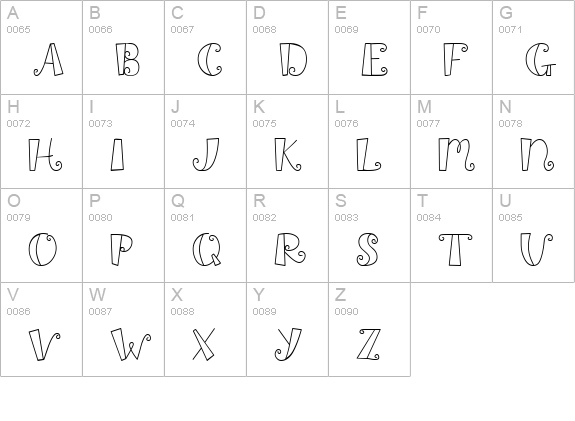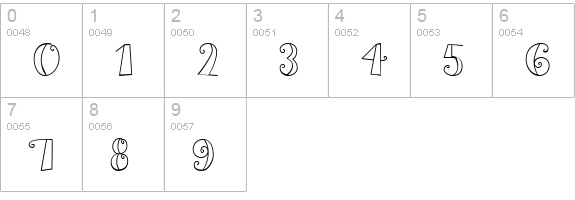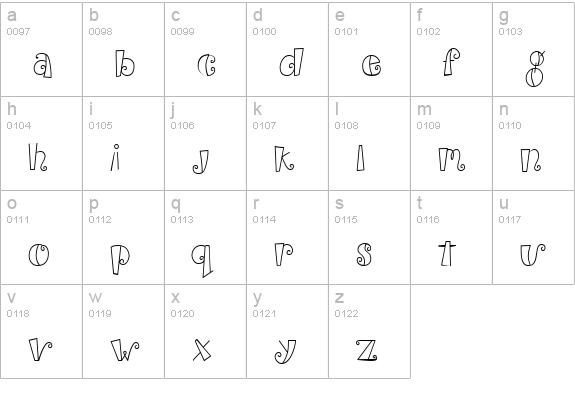
CK Anything Goes Font Details
CK Anything Goes font is a versatile and modern typeface that effortlessly blends a sense of playfulness with sophistication. With its clean lines and stylish curves, this font is perfect for a wide range of design projects, from branding to editorial layouts. The CK Anything Goes font offers a unique charm that will make your text stand out and captivate your audience. What makes this font even more appealing is that it is available for free download at FontsMarket.com. This means that you can easily incorporate the CK Anything Goes font into your projects without having to worry about any additional costs. Whether you are a designer looking to add a touch of creativity to your work or a business owner seeking a fresh look for your branding, this font is a fantastic choice that won't break the bank. Download CK Anything Goes font today and let your creativity run wild!